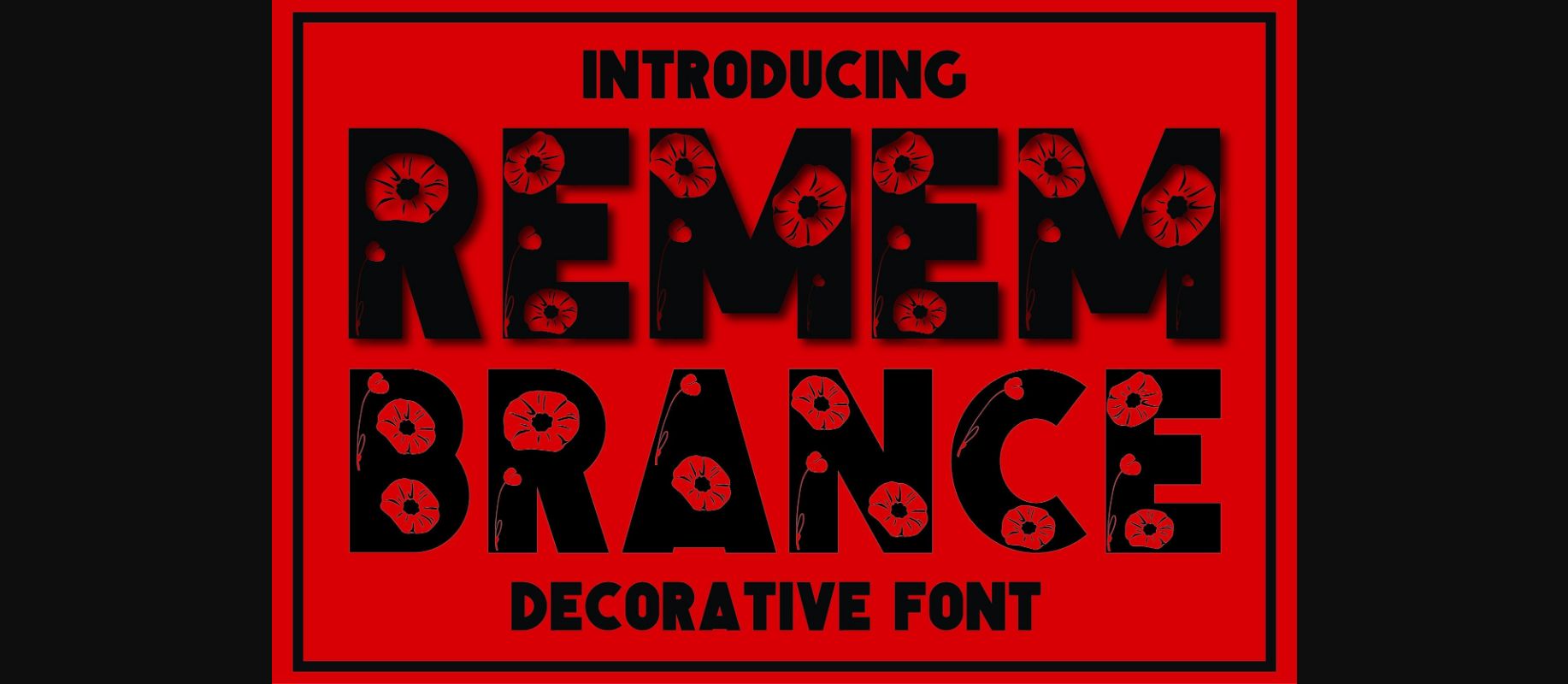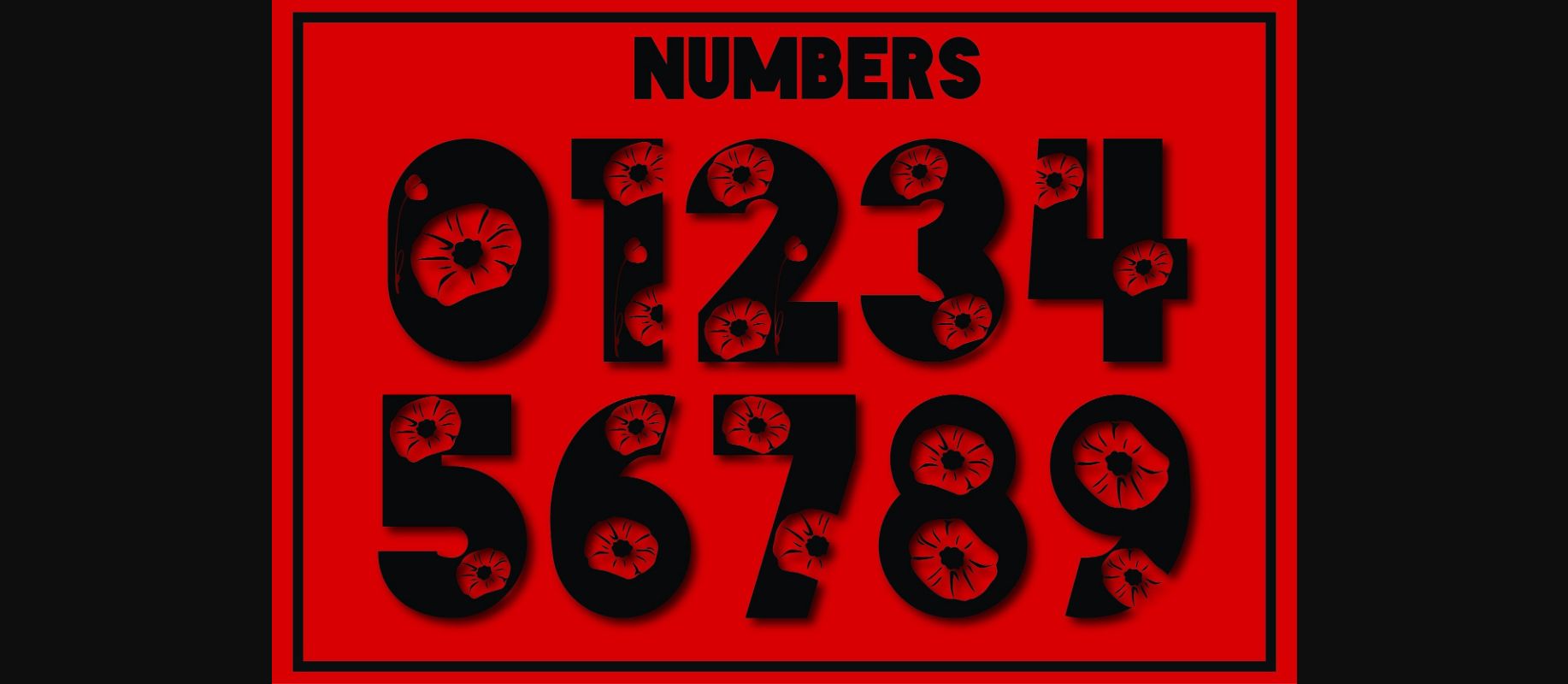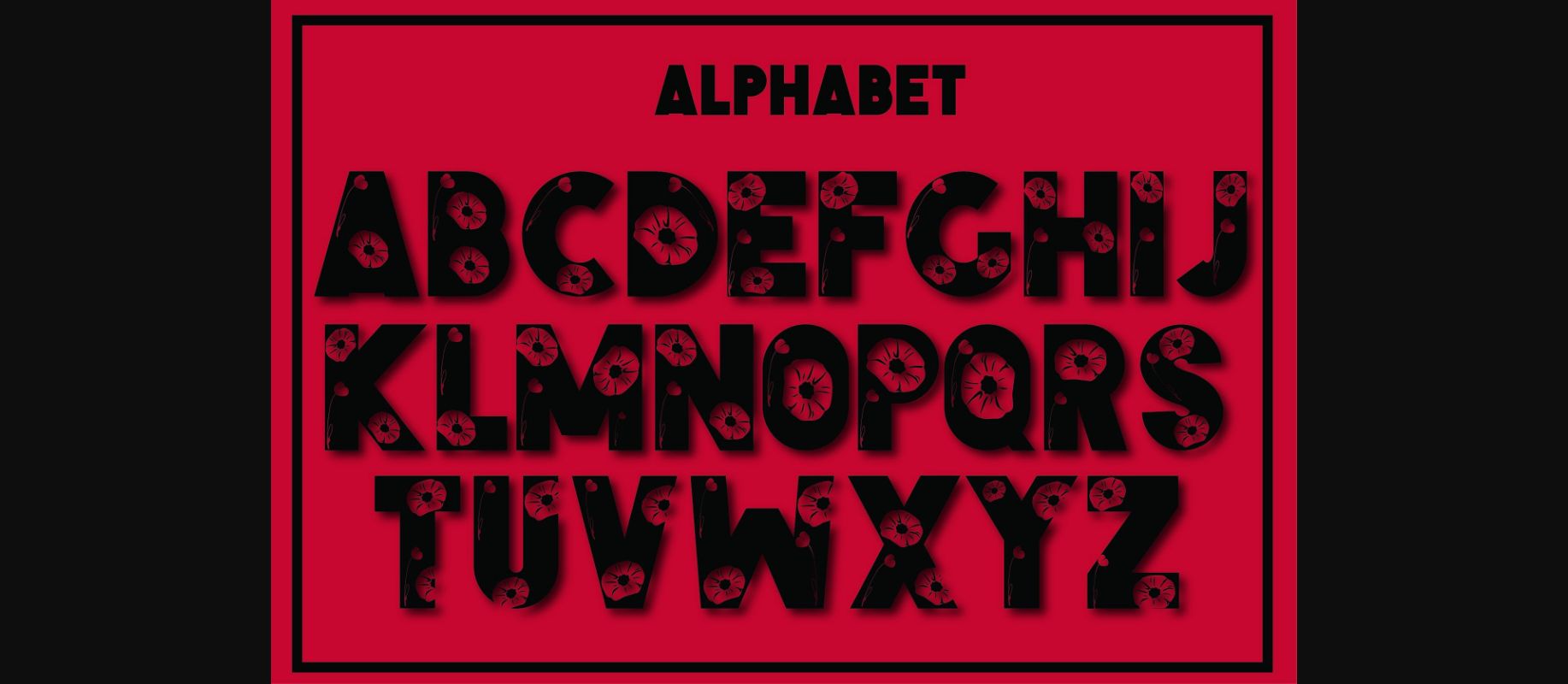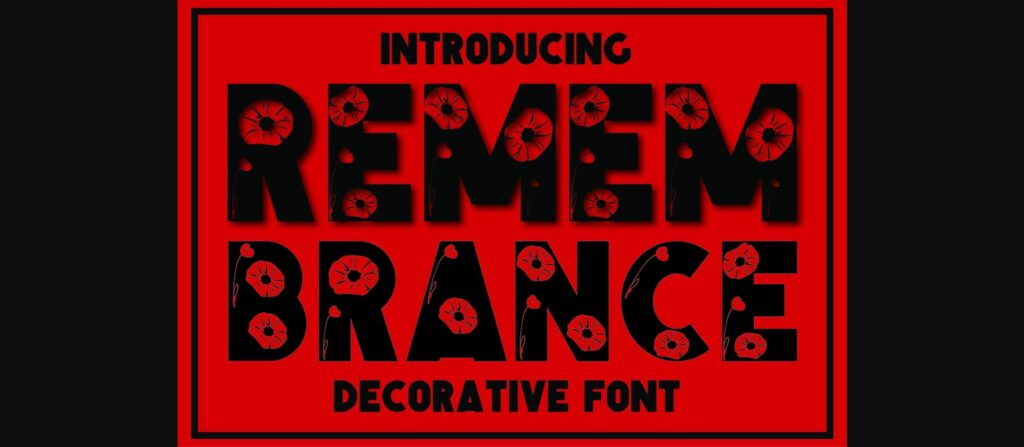
Remembrance Font
About Remembrance Font
Remembrance is a beautiful and unique decorative fontthat is perfect for celebrating Canada’s War Remembrance Day. The characters are bold and perfectly decorated with poppies.